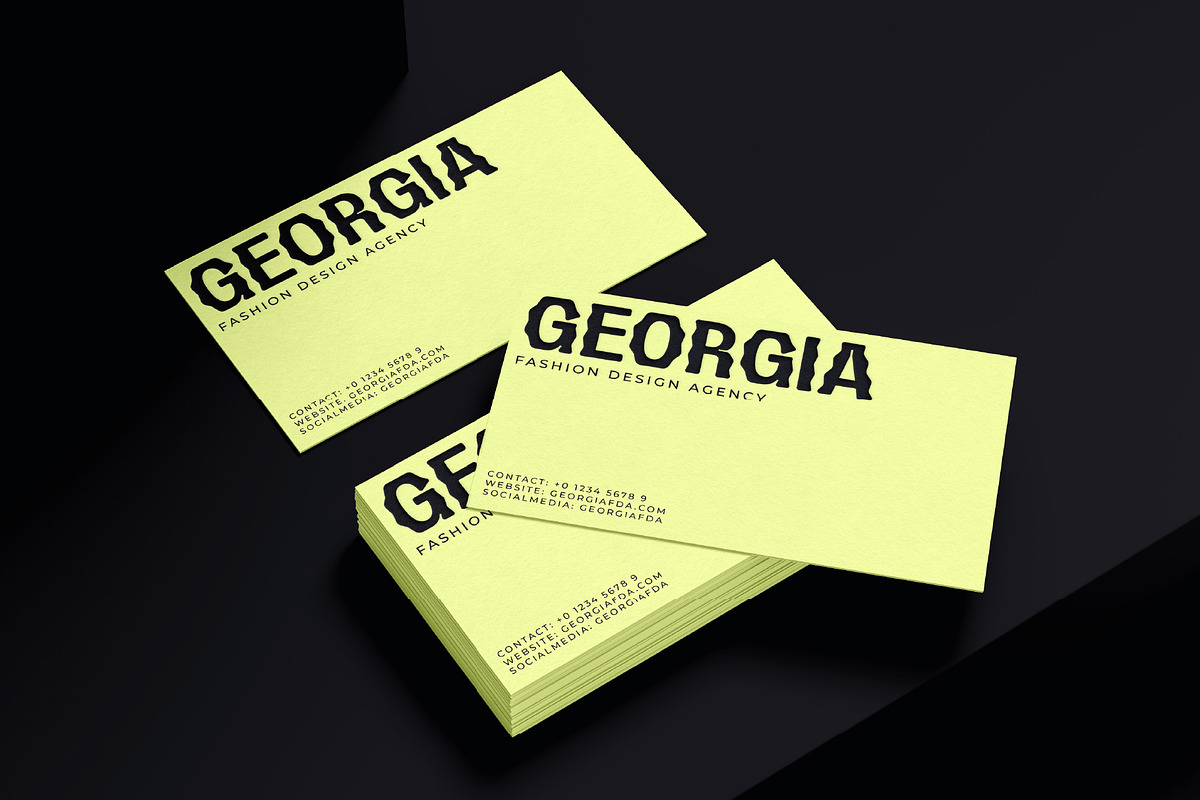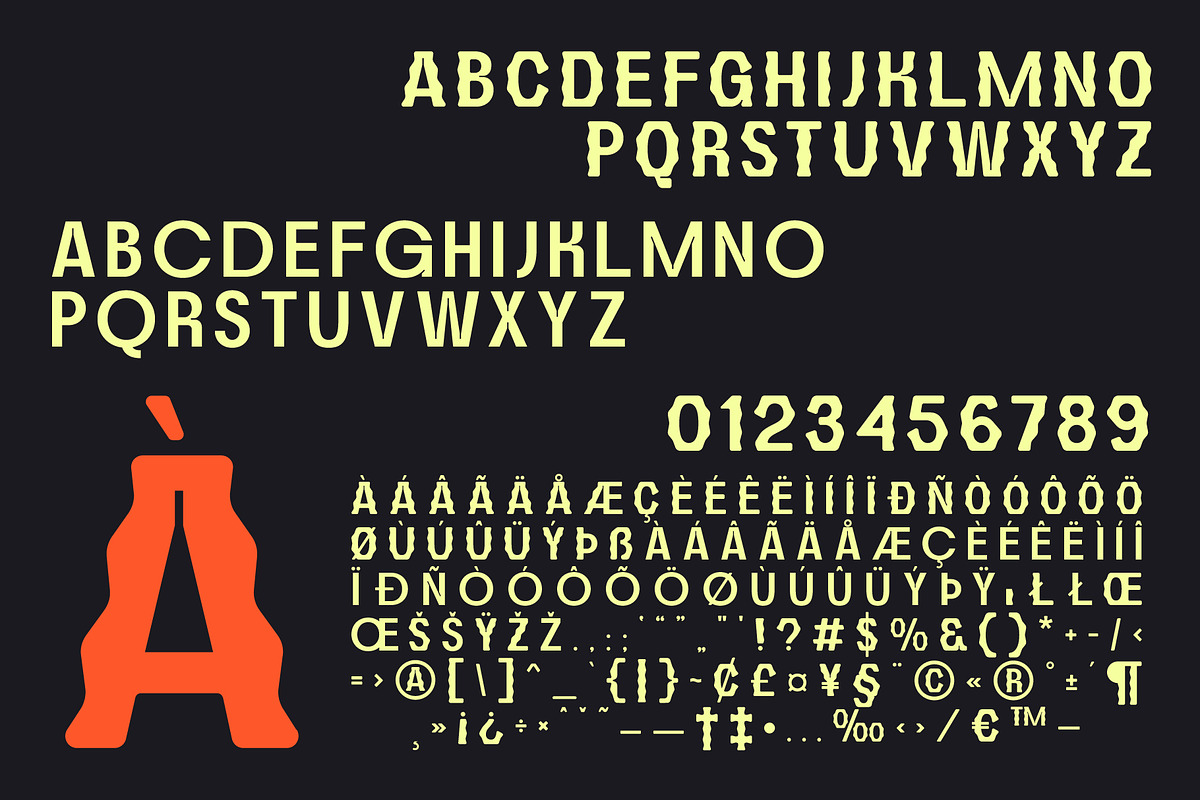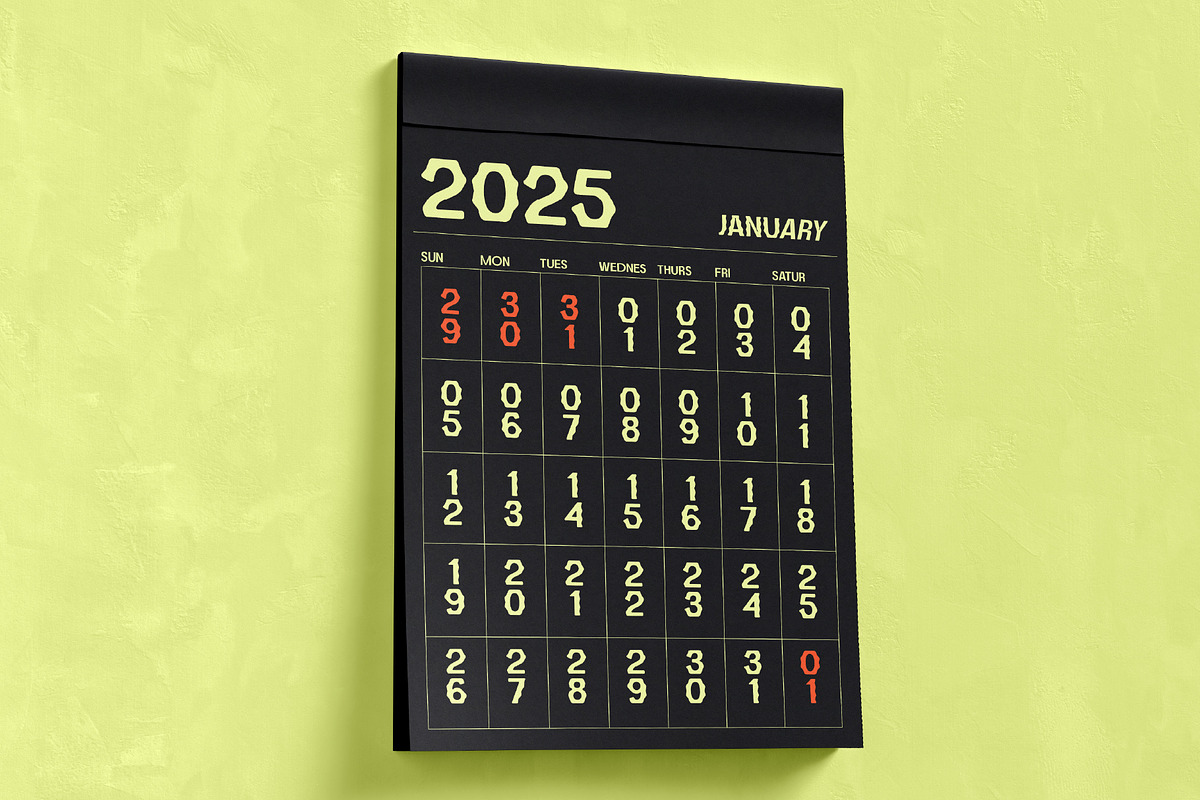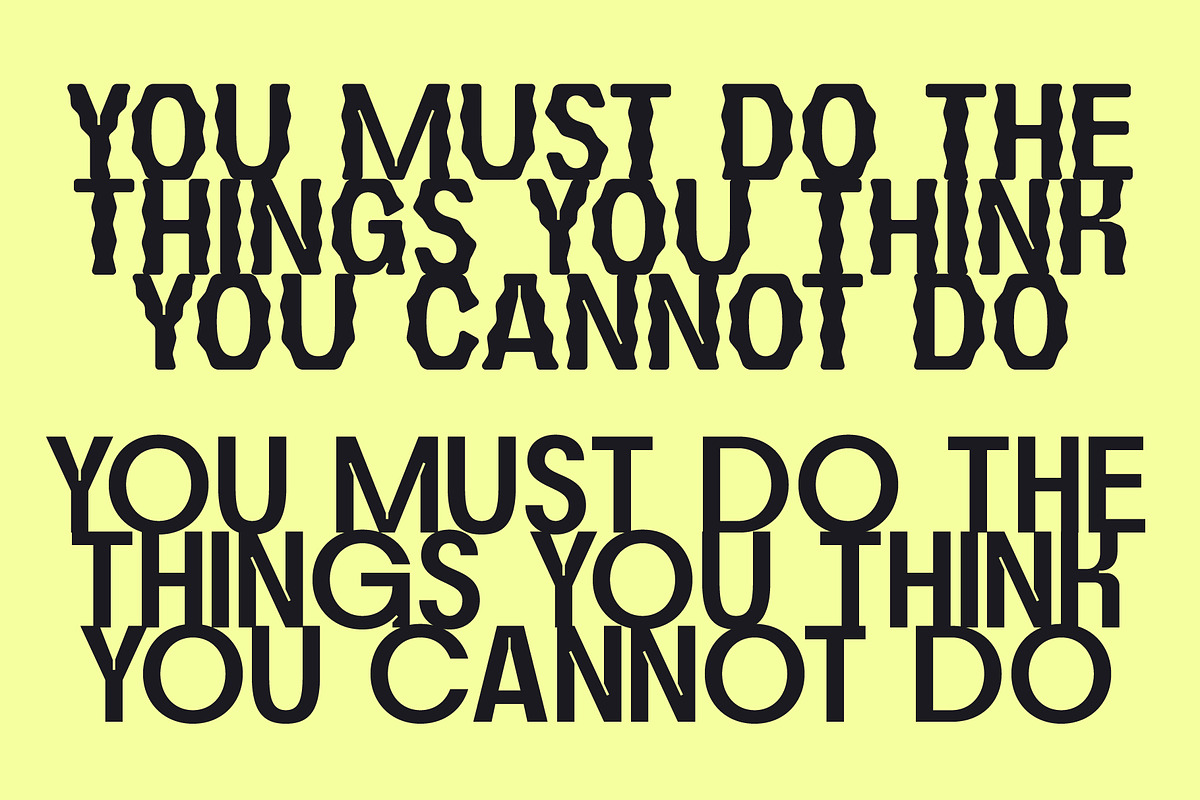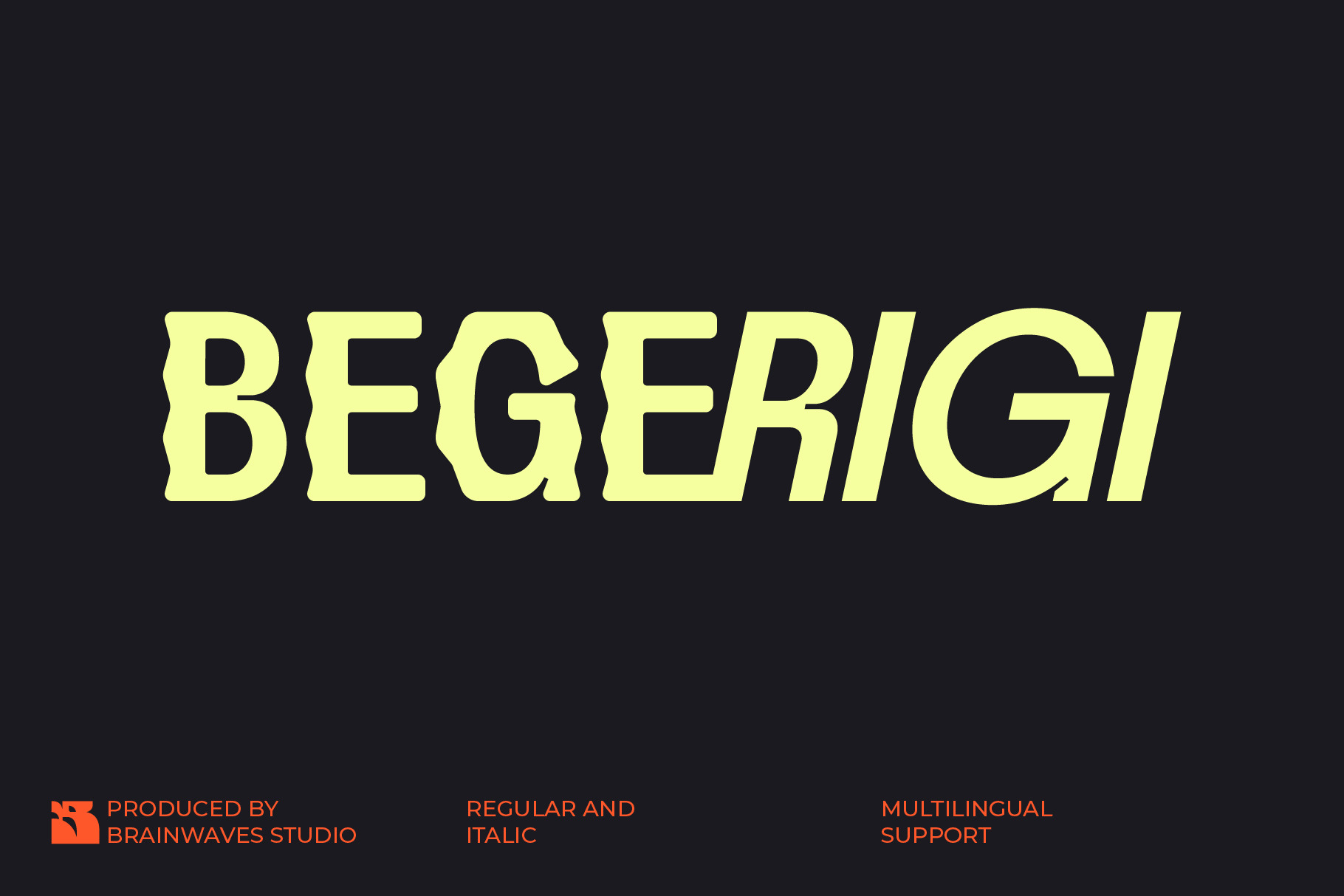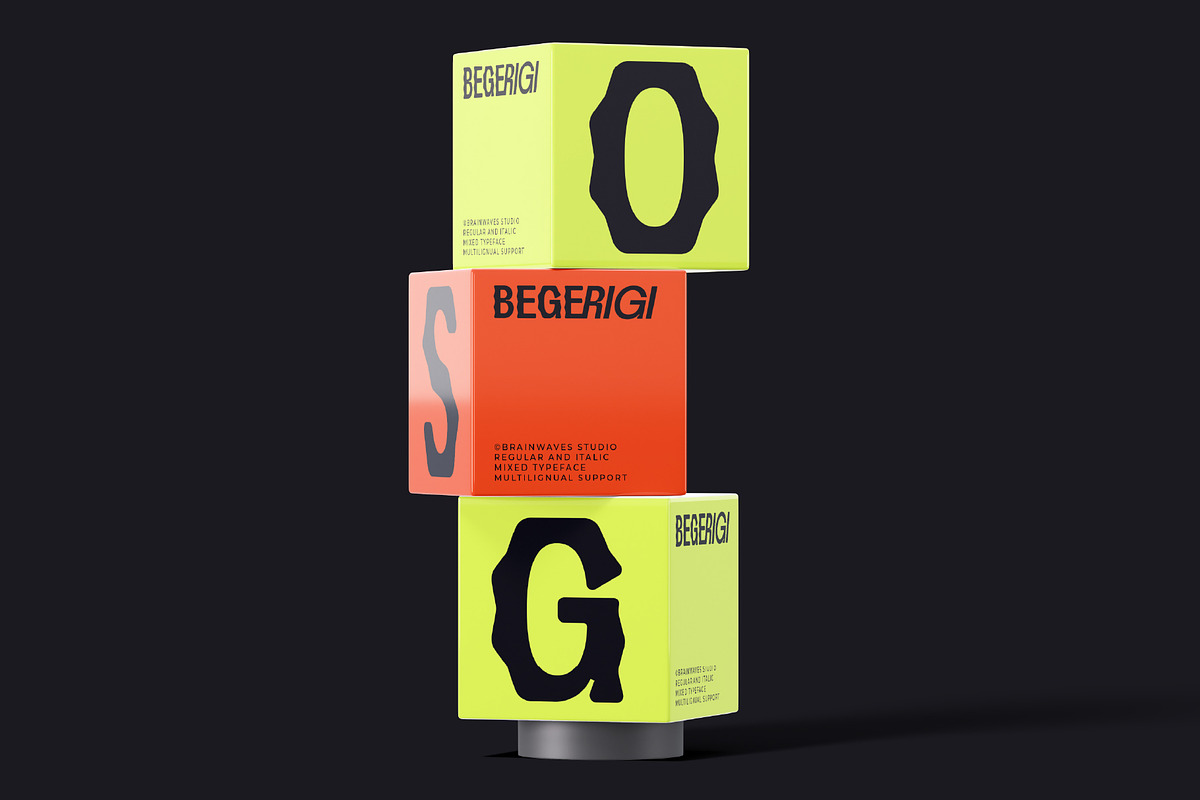
Begerigi - Display Sans-Serif Font
Ready to make a splash? Meet Begerigi, the bold and playful sans-serif display font with a unique wavy edge! This font isn't just a typeface; it's a statement. Its organic, toothed texture adds a quirky, unforgettable vibe to any project, making your designs pop with personality.
Perfect for headlines, logos, and attention-grabbing quotes, Begerigi is designed to stand out. Imagine your brand's name looking like a vibrant, liquid-smooth masterpiece. This font brings a modern, retro-futuristic feel that’s perfect for brands that aren’t afraid to be different.
- Regular & Italic Styles: Two versatile styles for dynamic layouts.
- Wavy, Jagged Edges: A truly unique visual trait that sets it apart.
- Bold & Heavy Strokes: Delivers high impact and excellent legibility in large sizes.
- Extensive Multilingual Support: Ready for global brands with a wide range of accented characters.
- Full Character Set: Includes uppercase, lowercase, numbers, and symbols.
Suitable For
- Brand Logos & Visual Identity
- Social Media Graphics (Instagram, TikTok)
- Merchandise & Apparel Design
- Product Packaging & Labels
- Poster & Event Flyers
- Magazine Headlines & Editorial Layouts
- Creative Studio Branding